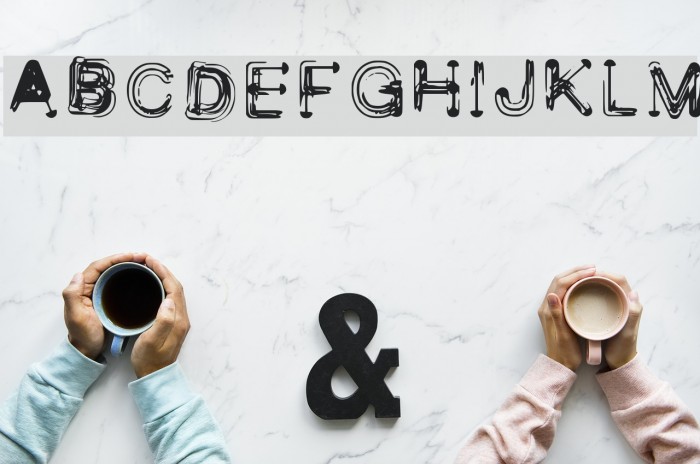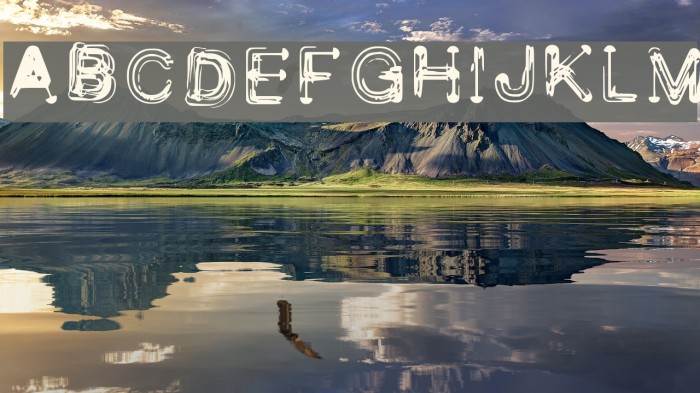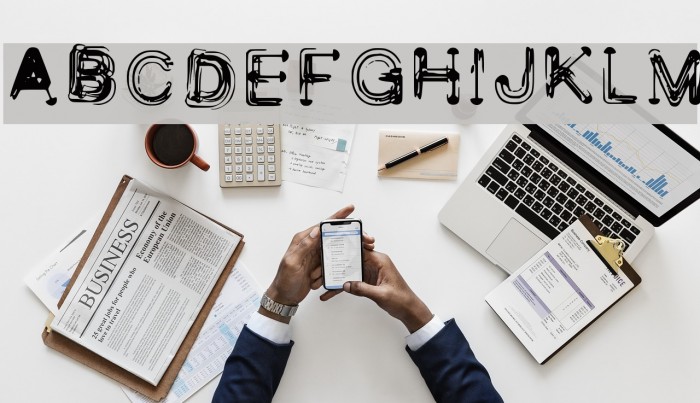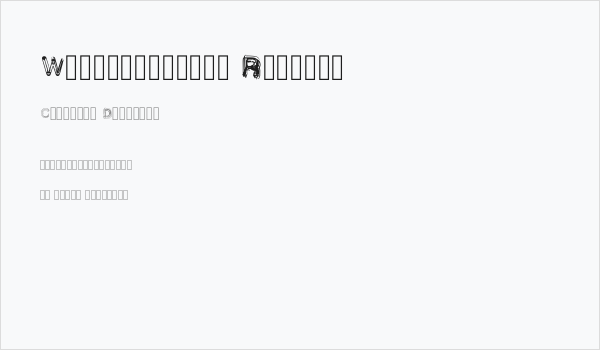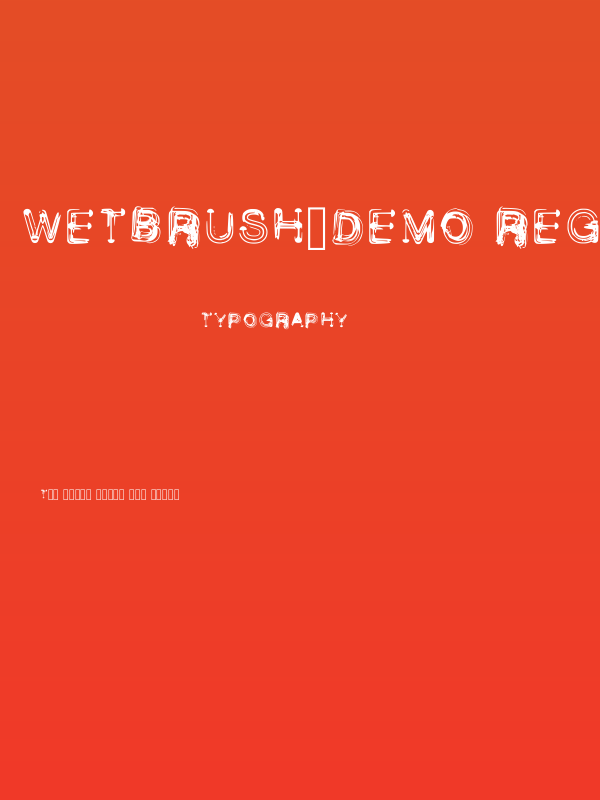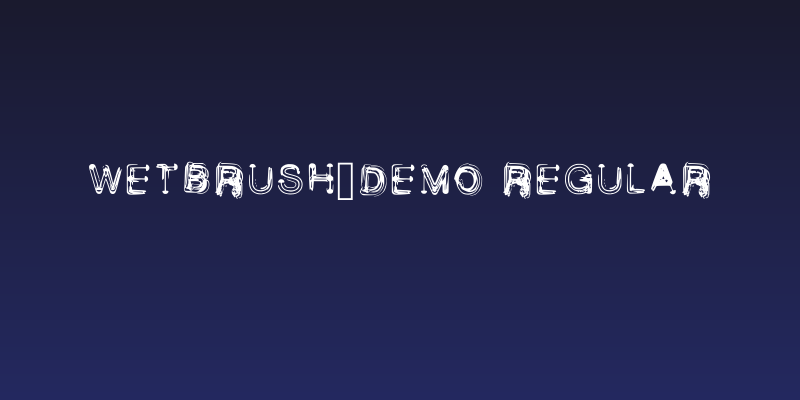
Wetbrush_demo Regular Font
Wetbrush_demo Regular Description
This font features a unique, artistic style with a hand-painted appearance. The uppercase letters exhibit a bold, brushstroke effect with varying thickness, creating a dynamic and textured look. Each character has an organic feel, as if painted with a wet brush, giving it a lively and expressive quality. The font's design is both creative and eye-catching, making it suitable for projects that require a distinctive and artistic touch. Its irregular strokes and playful form add a sense of movement and energy, making it ideal for creative and informal applications.
| Overall Style | Artistic, Expressive |
| Proposed Projects | Ideal for artistic projects, posters, album covers, and creative branding. |